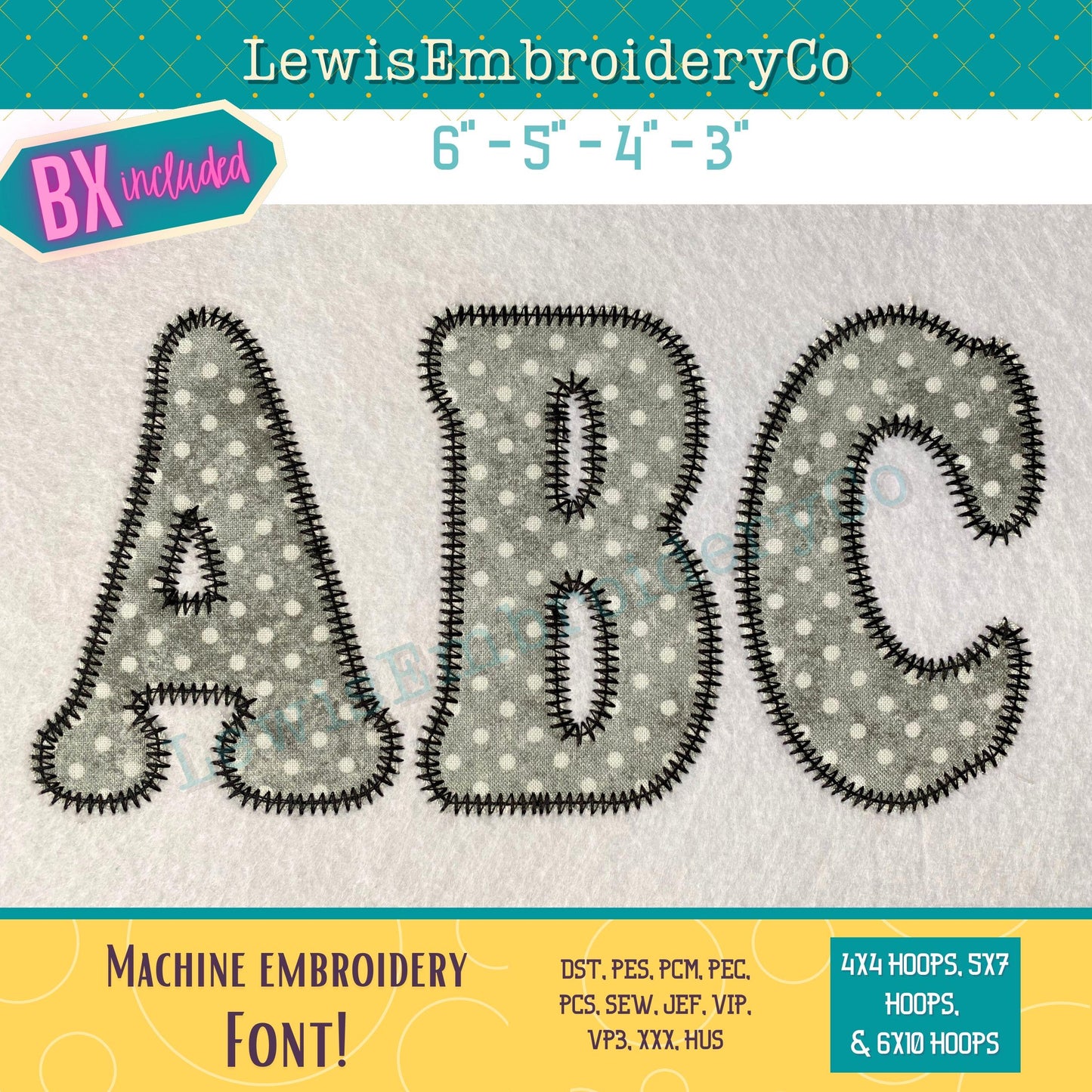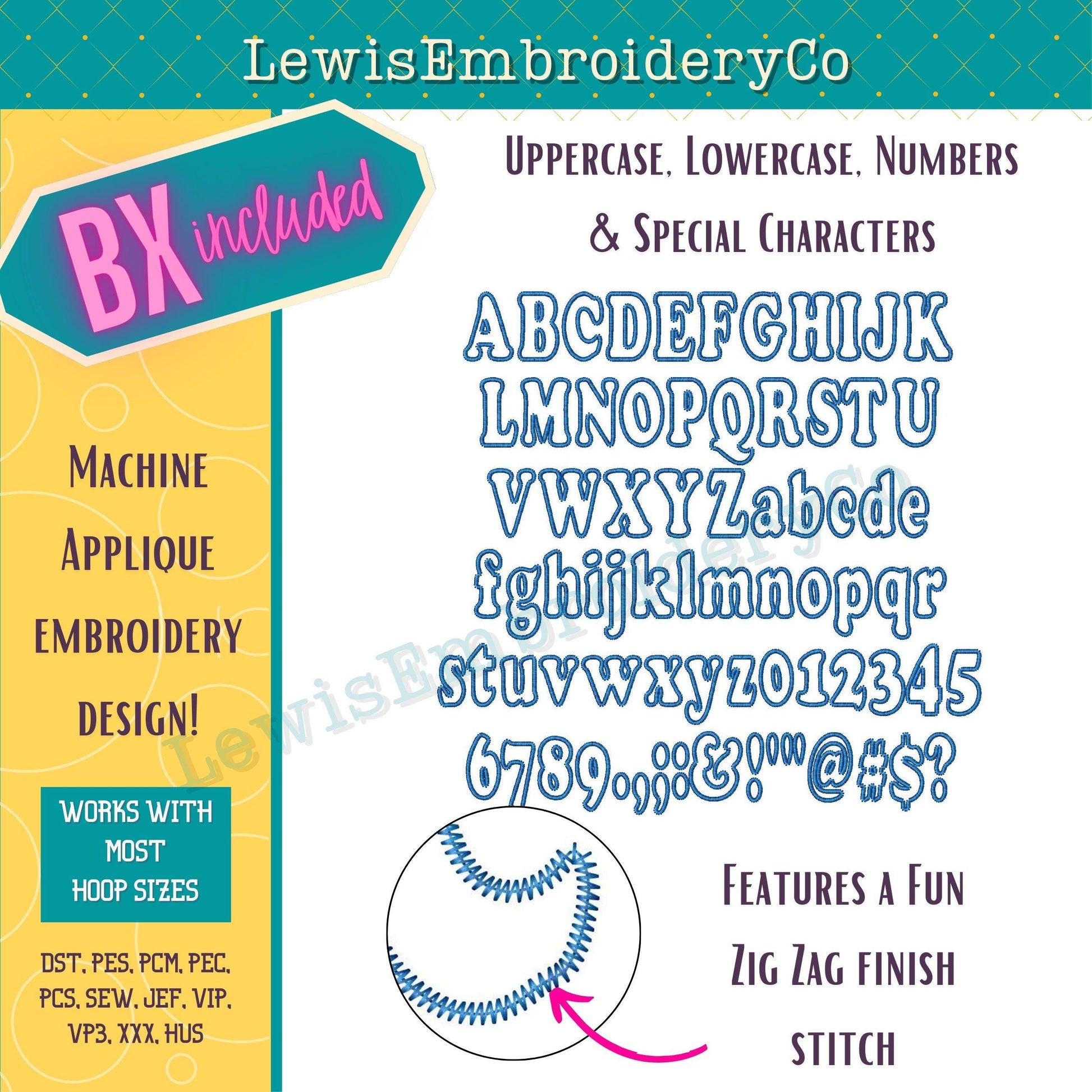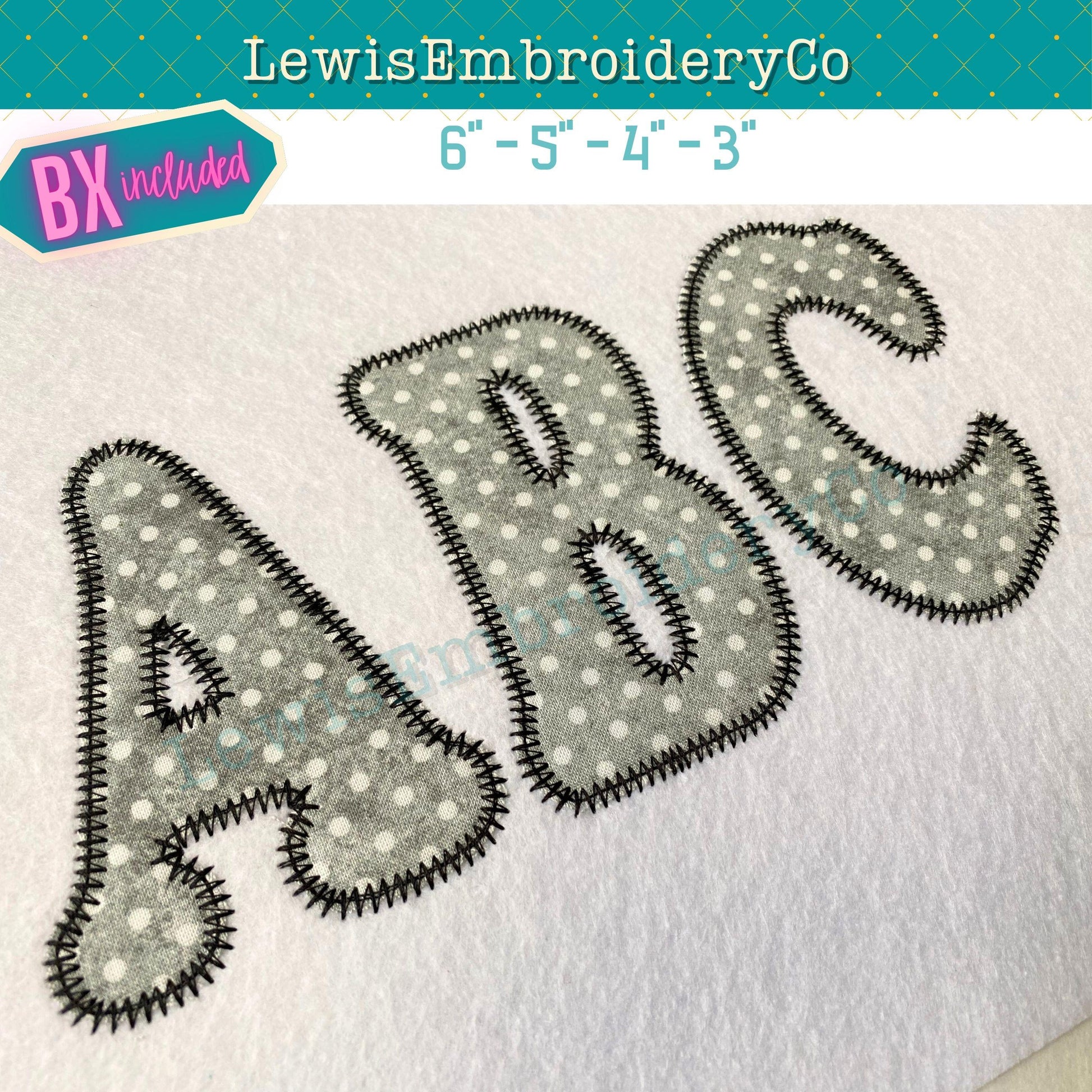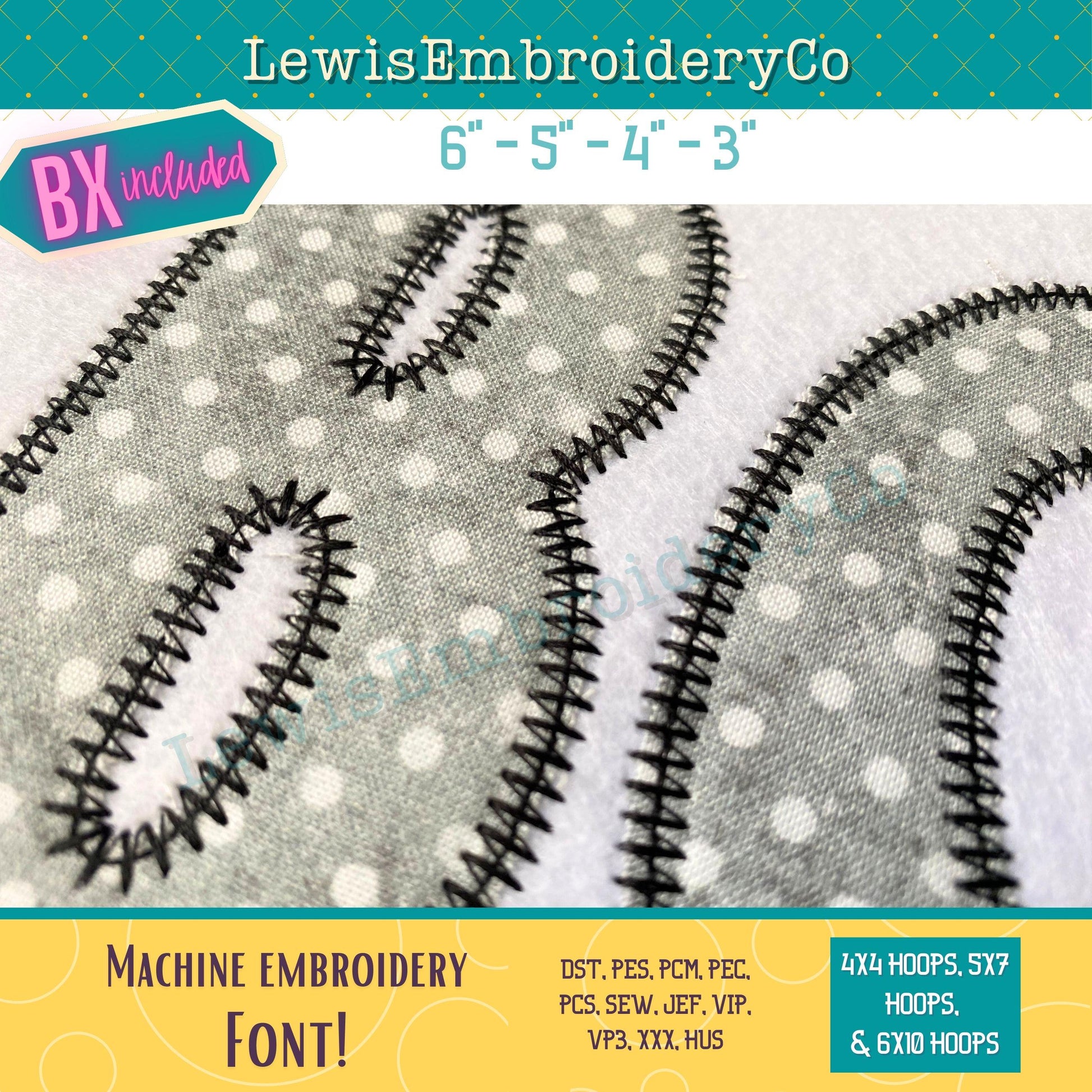
Zig Zag Applique, Narrow, Machine Embroidery Font - With BX - (PDF Tutorial Included)
Zig Zag Narrow Cooper Applique Embroidery Font - Birthday Applique Alphabet - Vintage Applique Embroidery Font - BX Font - Applique Numbers
This fun font will add a nice touch to any of your projects!